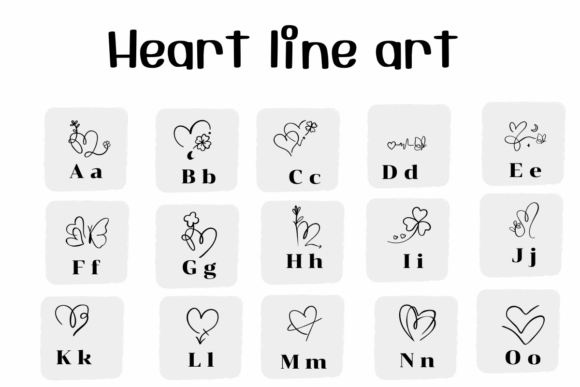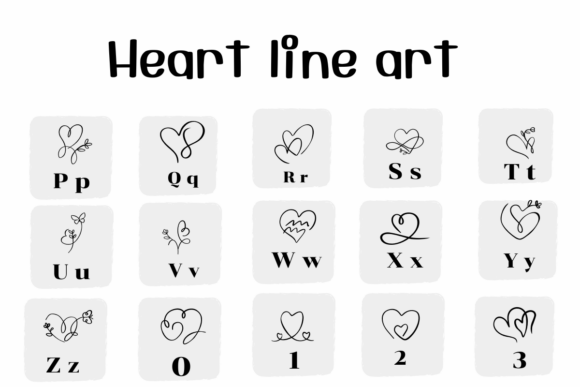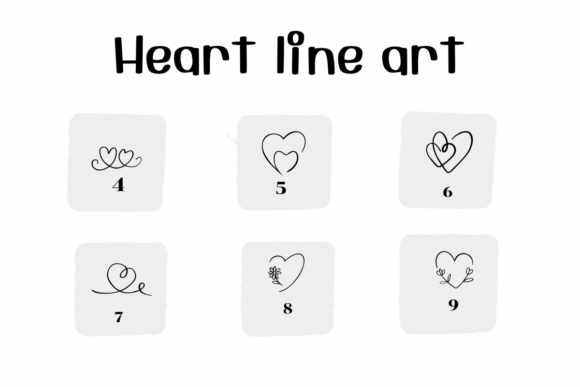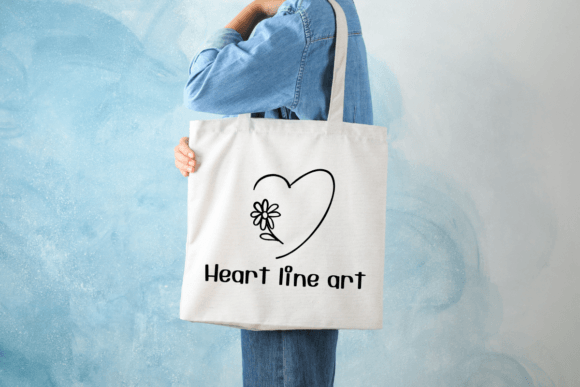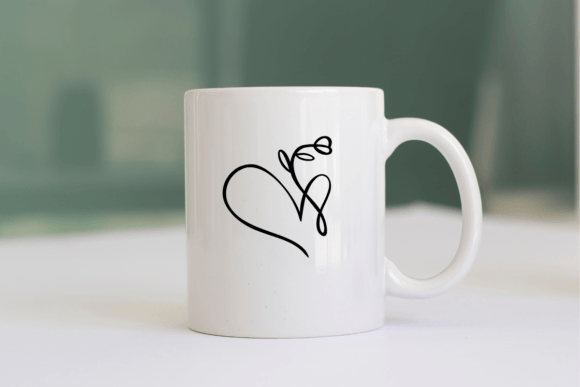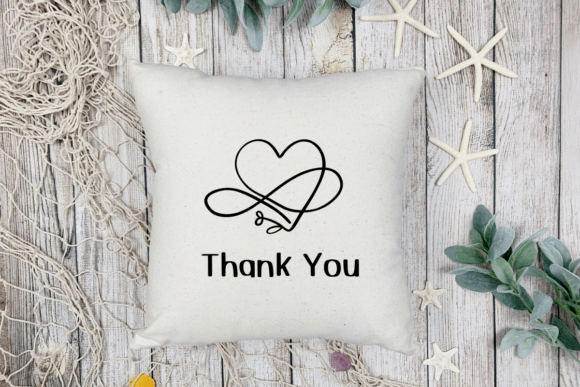
Introduction to Heart Line Art Font
Do you remember that moment when you were brainstorming ideas for a special project, and the perfect design element just clicked into place? For many creatives, that ‘aha’ moment is what makes all the difference. It’s the spark that sets their imagination ablaze and inspires them to bring their vision to life. For designers and crafters, having the right design resources at their fingertips can make all the difference in elevating their work to the next level.
That’s where the Heart Line Art Font comes in – a stunning dingbat font featuring intricate hearts that can add a touch of whimsy and romance to any creative project. With its high-quality design and transparent background, this font is a valuable resource for designers looking to create beautiful and unique visuals.
Whether you’re working on a wedding invitation, a DIY craft, or a logo design, the Heart Line Art Font is sure to inspire your creativity and help you bring your vision to life. And the best part? It’s available for free download, making it an accessible and versatile design resource for anyone looking to add a touch of heart to their work.
Key Features of Heart Line Art Font
- Unique Hand-Drawn Design: Heart Line Art Font offers a distinctive, hand-drawn aesthetic perfect for adding a personal touch to your creative project.
- Multi-Color Support: The font supports multiple colors, giving you the flexibility to experiment with different color combinations and styles to match your project’s requirements.
Honest Review: Heart Line Art Font
I recently came across the Heart Line Art Font while searching for a unique design resource for a creative project. As a designer, I was excited to explore this font and see if it would add some flair to my work. Here’s my honest review.
- The transparent background feature is a nice touch, allowing me to easily place the font over different images and backgrounds.
- The high quality of the font is evident, with clear and crisp lines that make it perfect for printing or digital use.
- The font is a bit limited in terms of styles and variations, which may not be ideal for designers looking for a more extensive range of options.
- The font is not suitable for use in certain contexts, such as formal documents or presentations, due to its playful and artistic nature.
Overall, I’m impressed with the Heart Line Art Font and would definitely consider using it for future creative projects. While it may have some limitations, its unique design and high quality make it a great resource for designers looking for something a little different.
The Heart Line Art Font is perfect for creative projects that require a touch of elegance and sophistication. Some common use cases include:
To get the most out of the Heart Line Art Font, use it in conjunction with other design elements, such as images and shapes. Experiment with different colors and sizes to create unique and eye-catching designs. You can also use the font as a design resource for future projects, making it a valuable addition to your design library.